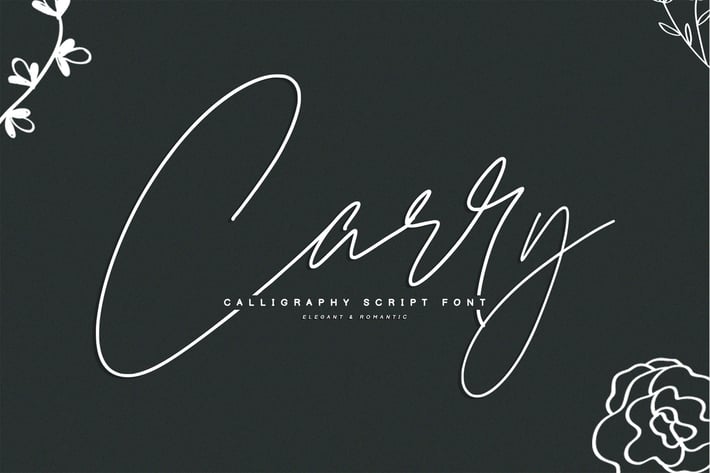
Carry | Modern Signature Font
Introducing Carry modern luxury signature font with realistic handwritten textures. It's great for creating signature logos and watermarks for photography studio, headline & etc. Carry Signature includes full set of standard character set, stylistic alternate set, numerals, a large range of punctuation, ligatures, lowercase ending swash and multilingual symbols.
A full set of upper & lowercase characters
Numbers & punctuation
ligatures
lowercase ending swashes
Accented characters